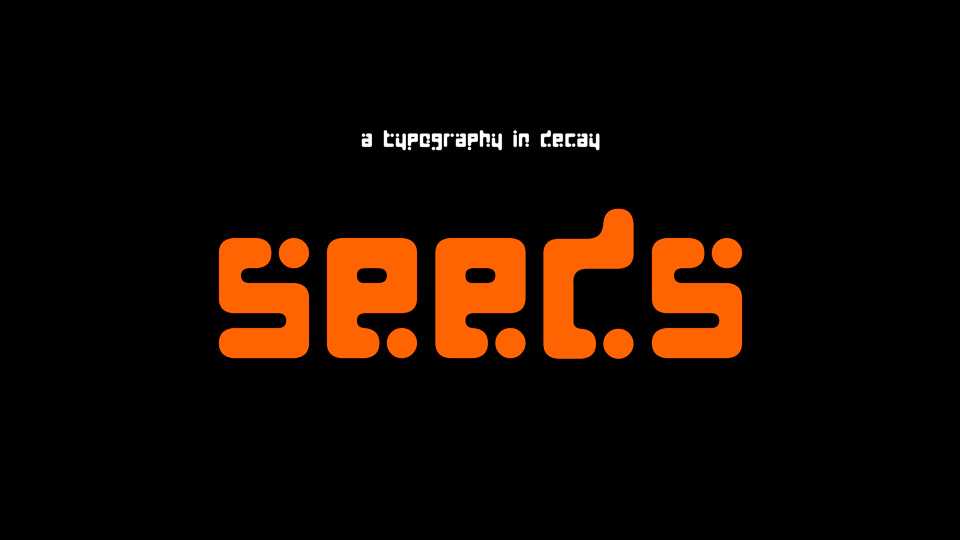
Download Seeds font, a rounded techno style display typeface with a geometric elements. Seeds is perfect for titles, posters, games, prints and other graphics.
Designer: Matt Perkins